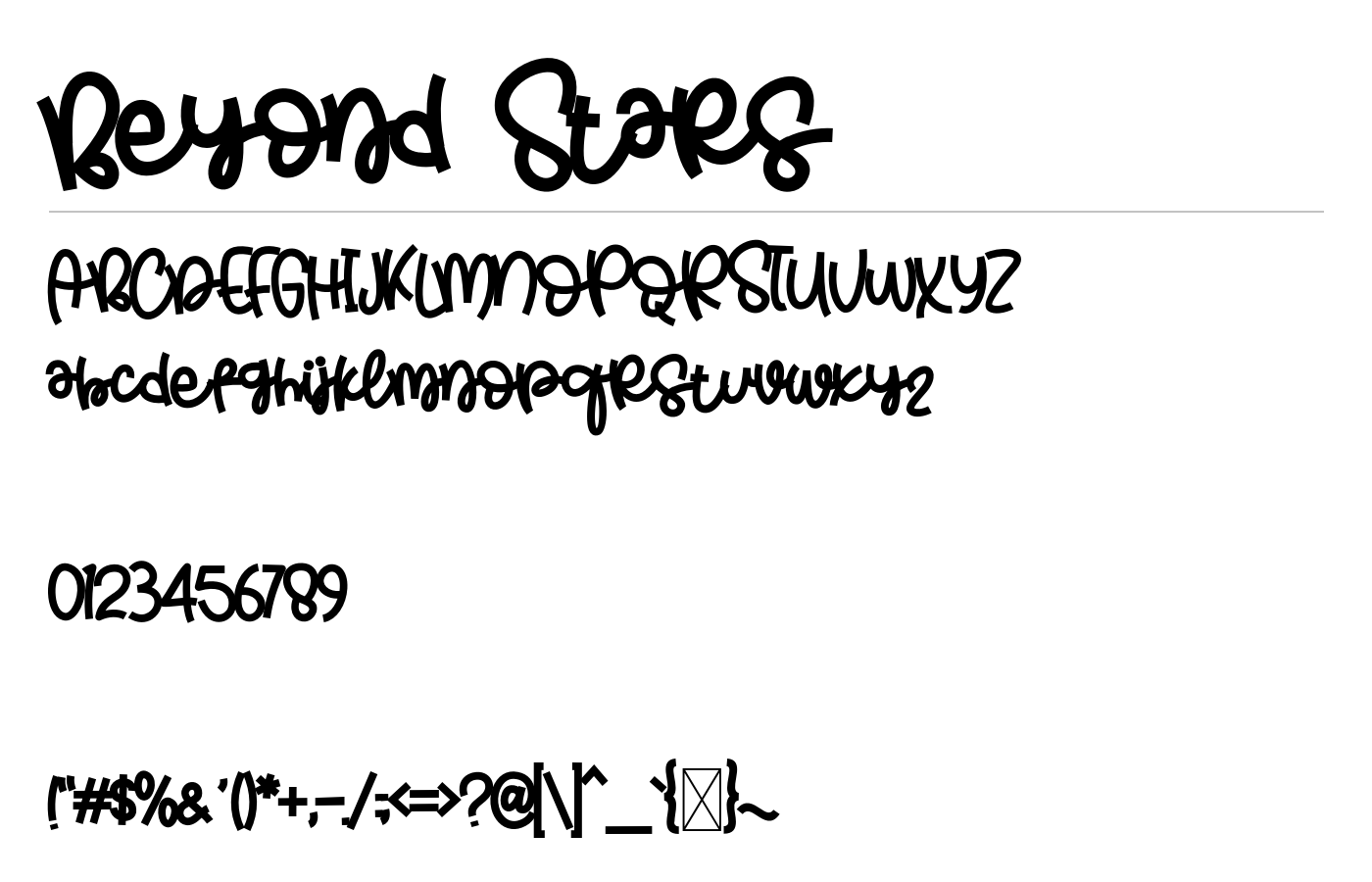
Beyond Stars is a playful and casual handwritten font with a lively, whimsical character. Its bold strokes and irregular shapes give it a friendly, informal feel, making it perfect for creative projects, children's designs, or anything needing a fun, approachable touch. This font shines in headlines, logos, and packaging where a unique, energetic personality is desired.
Beyond Stars Font
About Beyond Stars Font
| Font family | Beyond Stars Font |
| Designer | Burhan Afif |